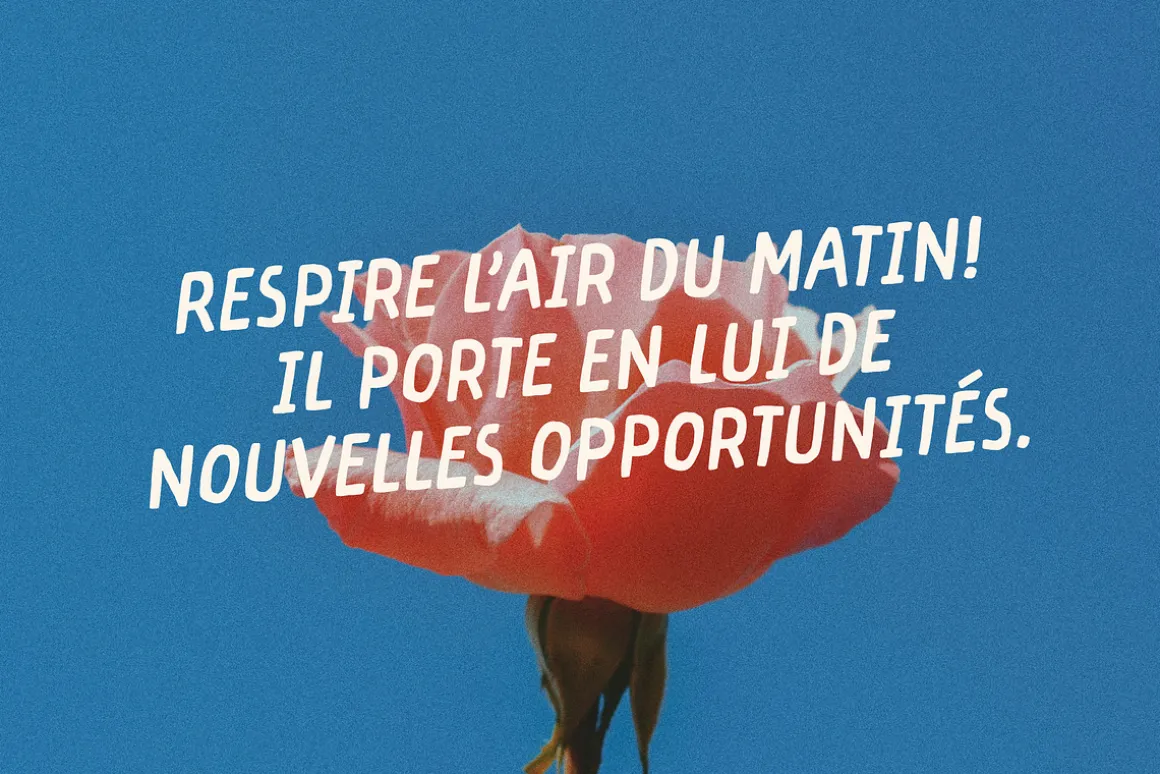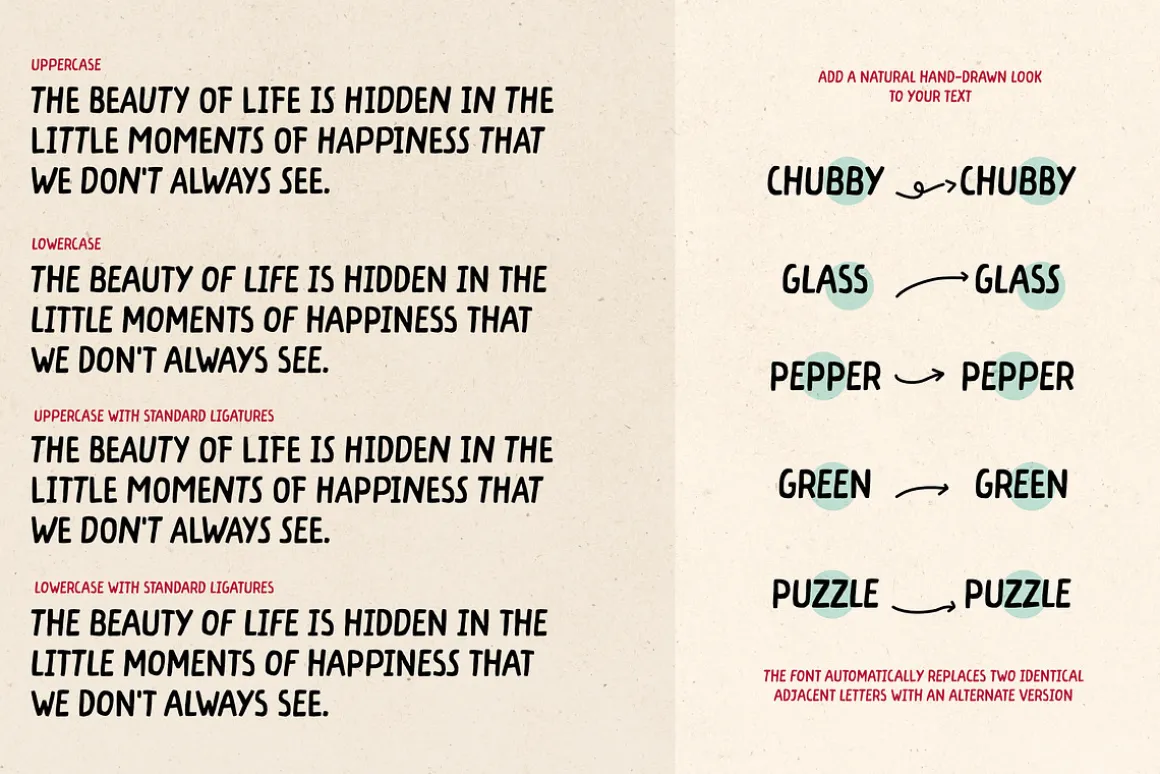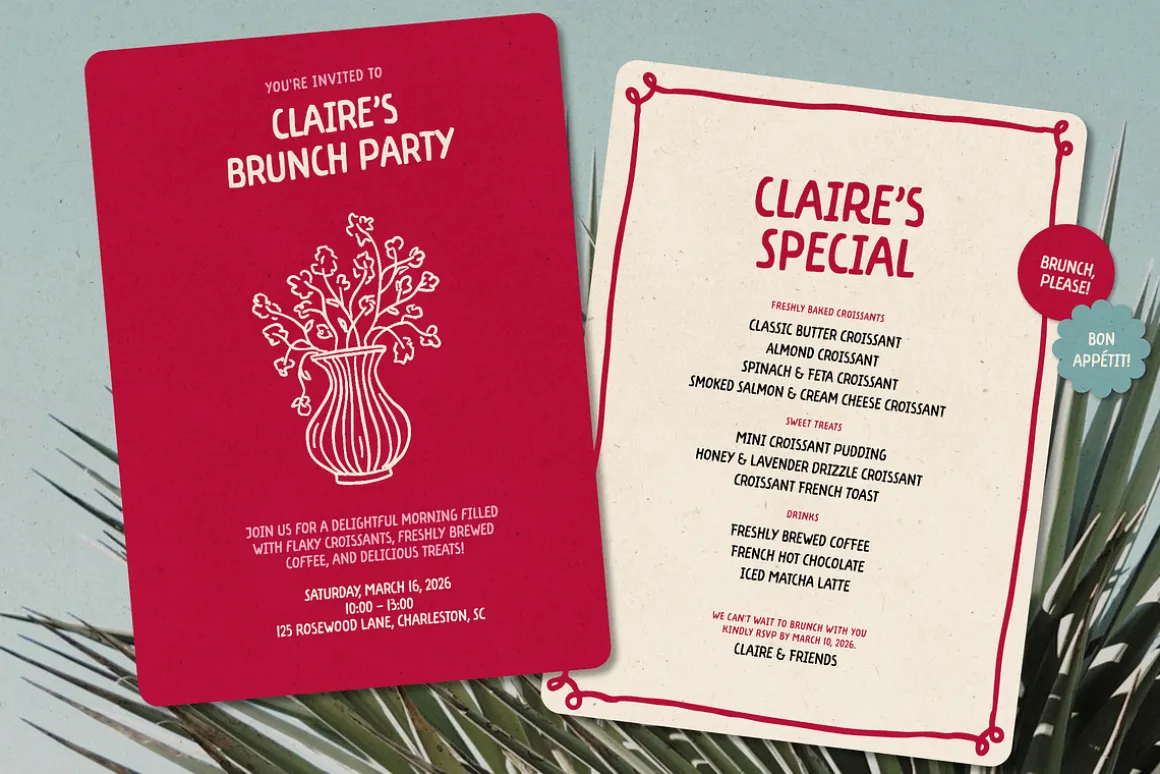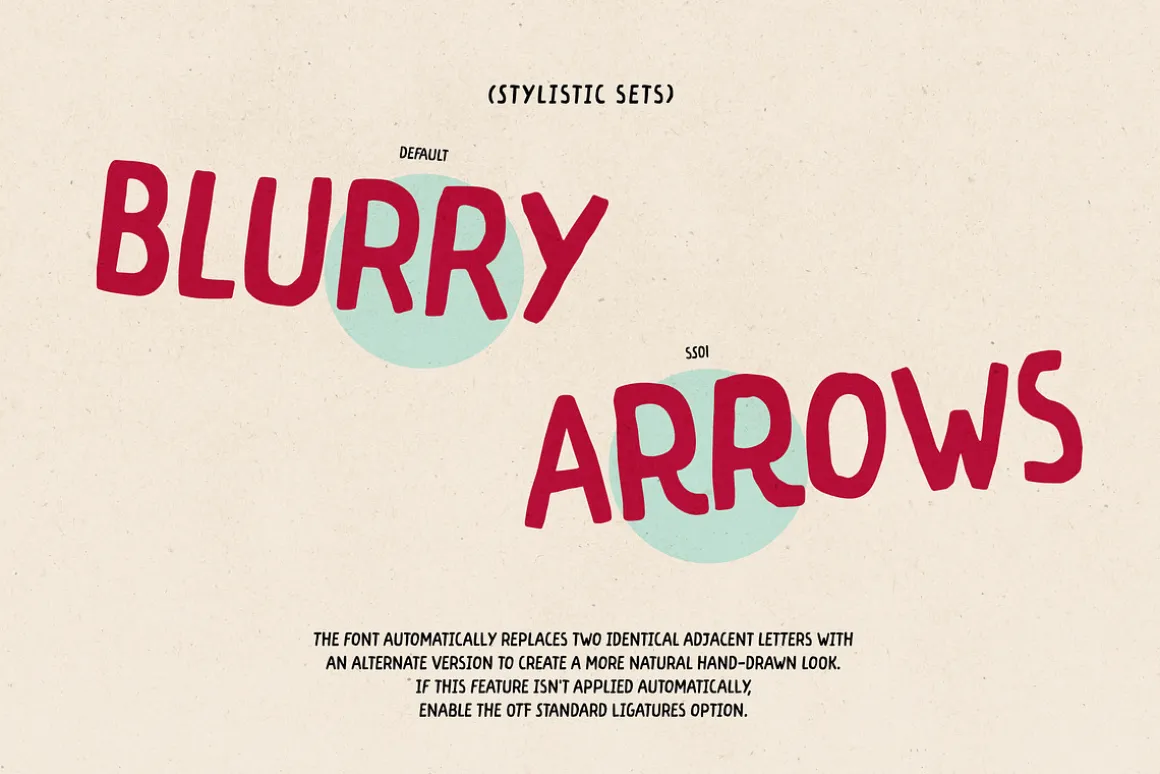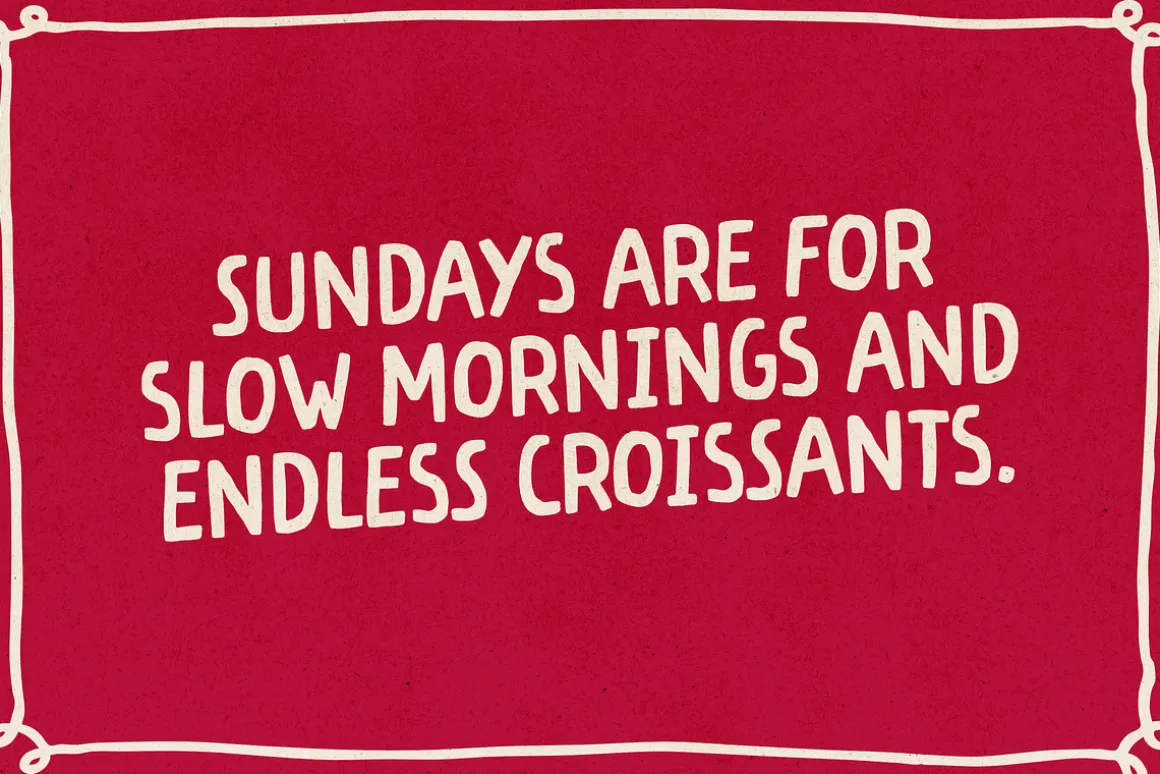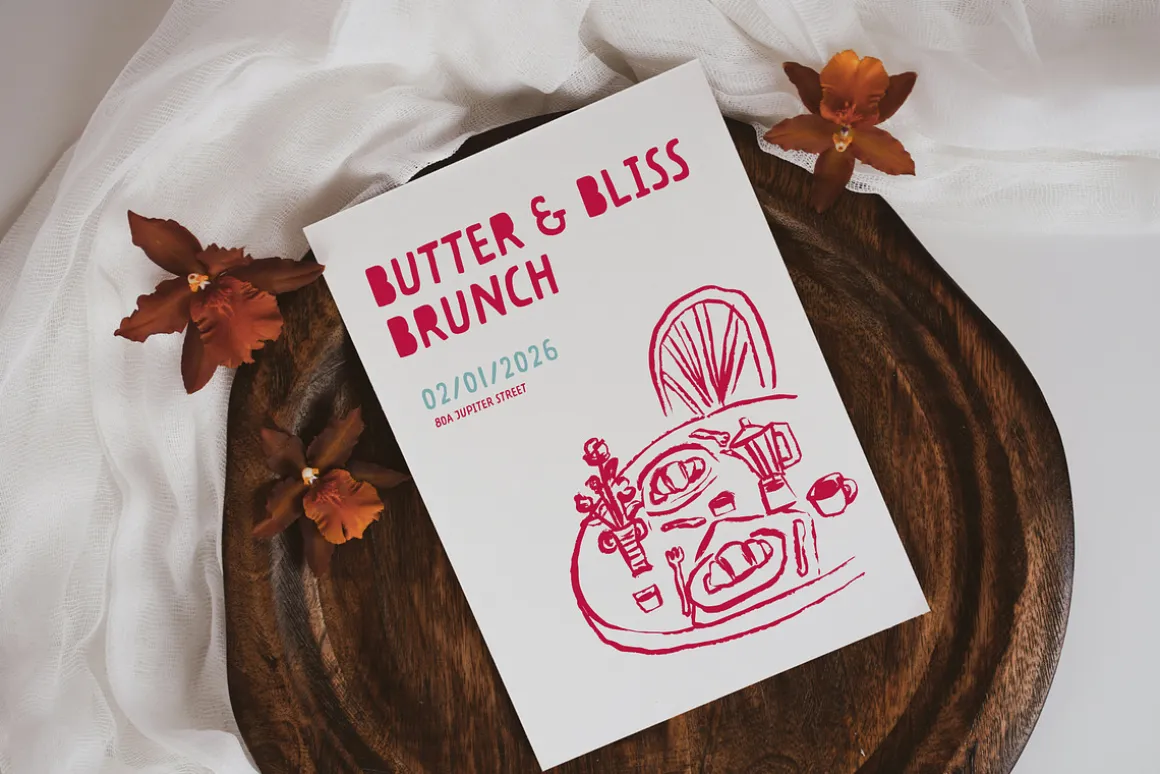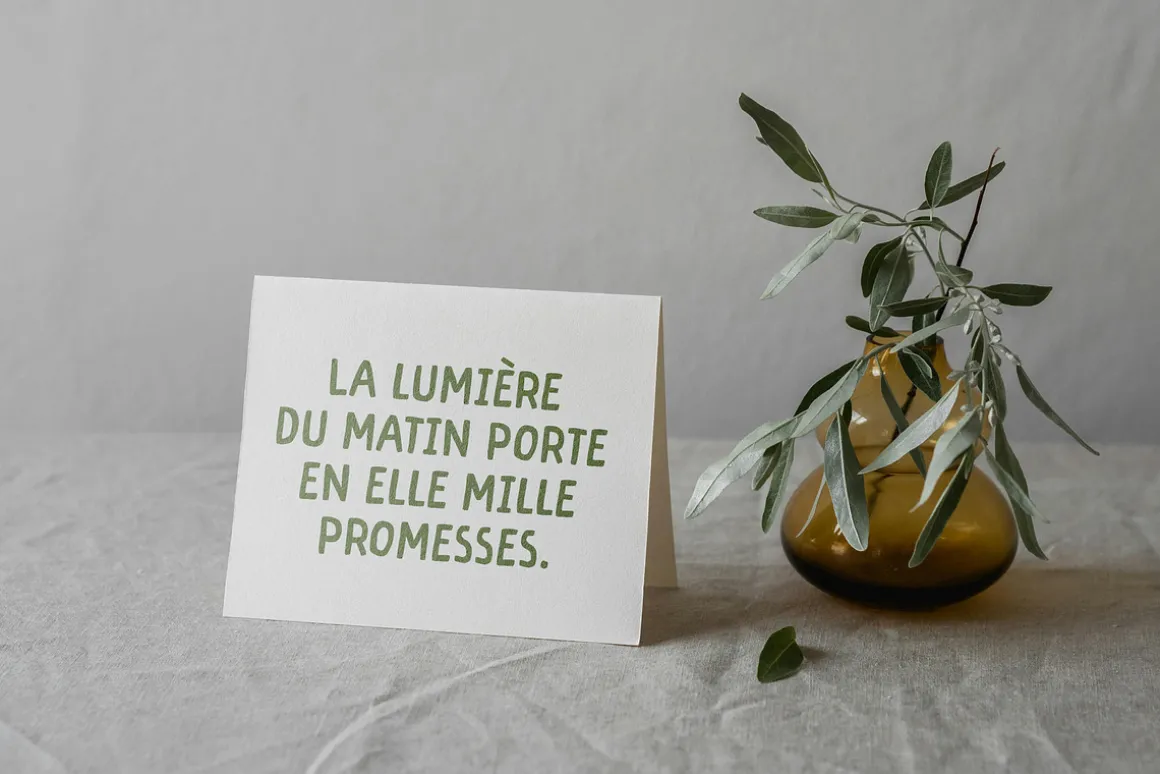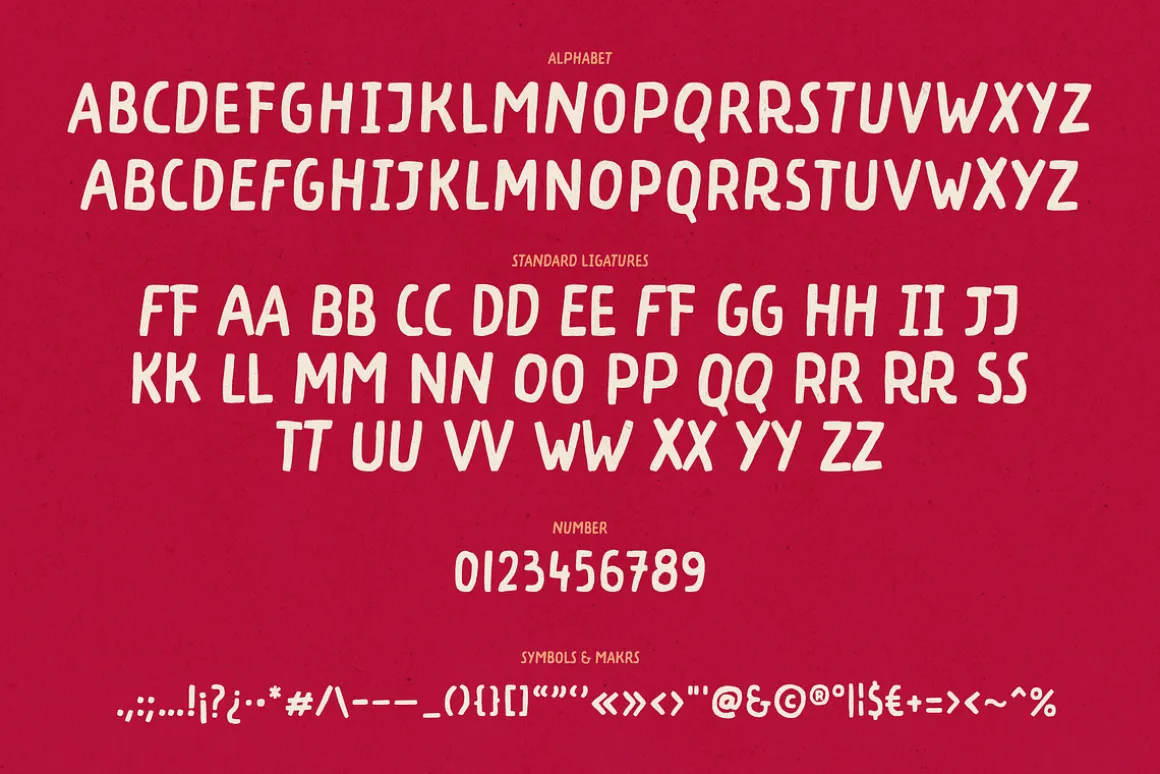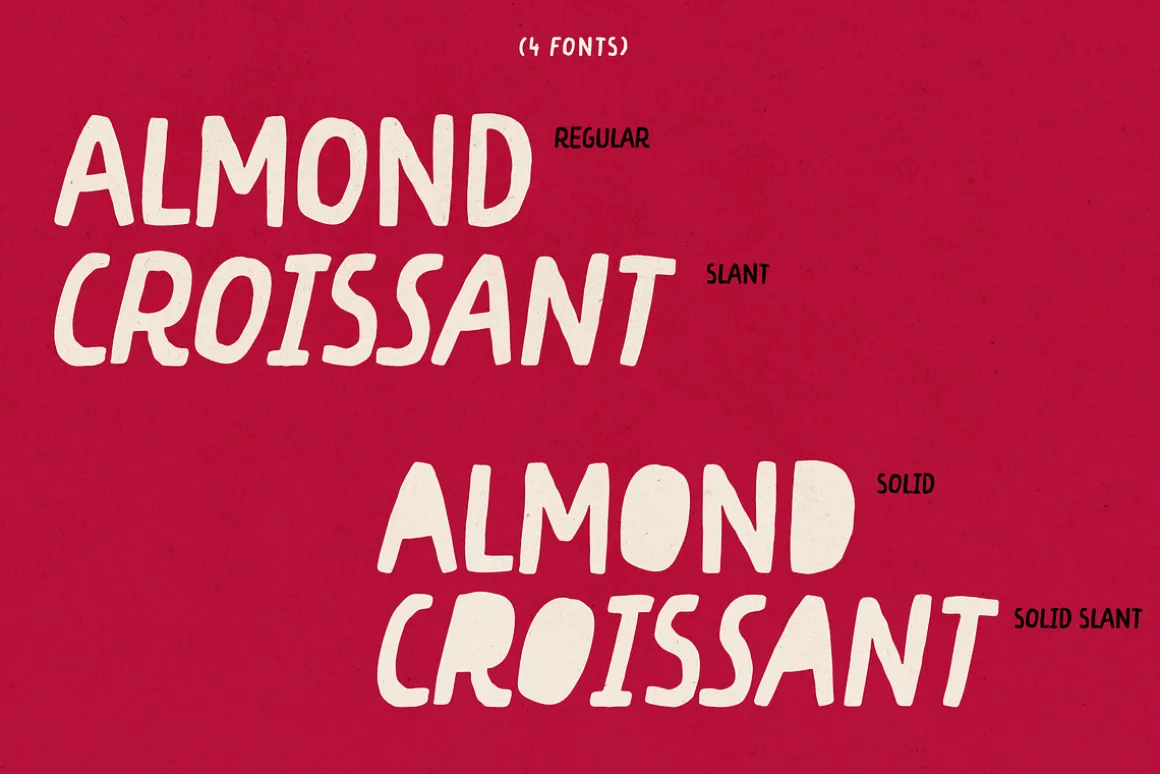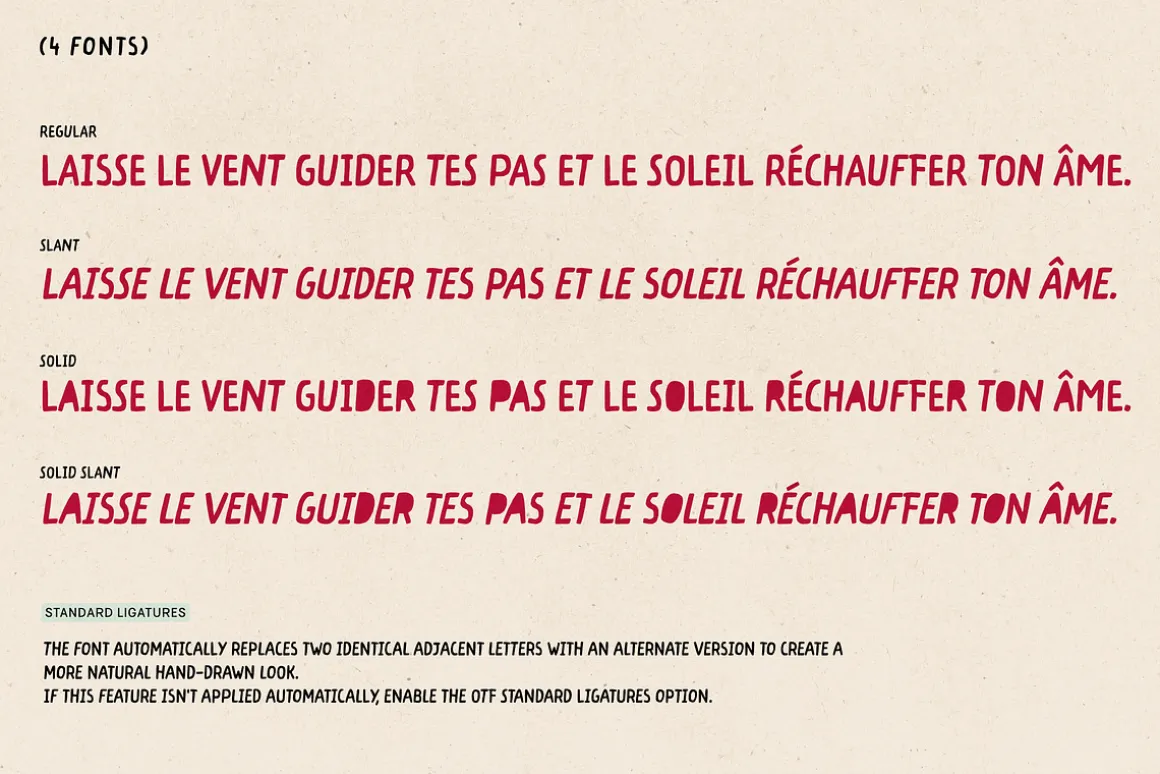
Almond Croissant is a hand-lettered font family designed to bring character and versatility to your projects. This all-caps, multilingual typeface comes with OpenType ligatures and other features to create dynamic and natural-looking typography.With four unique styles, Almond Croissant adapts to any creative need—whether you’re designing logos, branding, packaging, or eye-catching headlines.
The font automatically replaces two identical adjacent letters with an alternate version to create a more natural handwritten look. If this feature isn’t applied automatically, enable the OTF Standard Ligatures option.
Font features:
- All-cap
- 4 styles
- Numbers, marks and symbols
- Multilingual support
- Opentype ligatures, stylistic alternates features
Script: Latin
Supported Languages:English, Western European, Central European, South Eastern European.